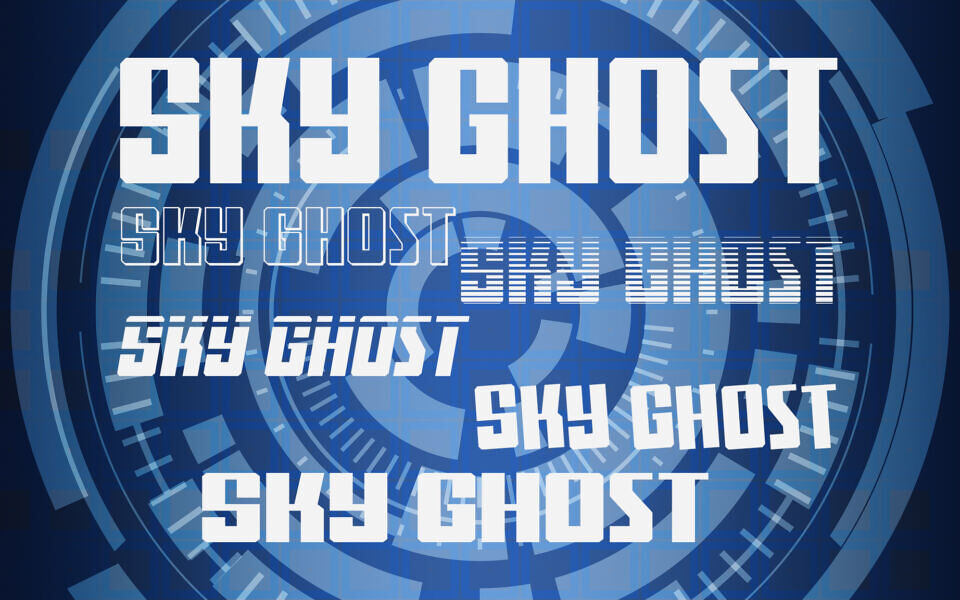
Sky Ghost is a bold display font with a retro sci-fi aesthetic inspired by 1970s comics and superhero typography. It features tall, thin letterforms with sharp edges and dynamic styling, giving it a futuristic, action-driven feel. The font includes multiple variations making it versatile for eye-catching titles, posters, and creative designs.
Styles included: Regular, Italic, 3D, 3D Italic, Condensed, Condensed Italic, Expanded, Expanded Italic, Gradient, Gradient Italic, Halftone, Halftone Italic, Laser, Laser Italic, Laser Super Italic, Leftalic, Rotated, Semi Italic, Semi Leftalic, Spaced, Spaced Italic, Spaced Semi Italic, Super Leftalic, Wide, and Wide Italic.